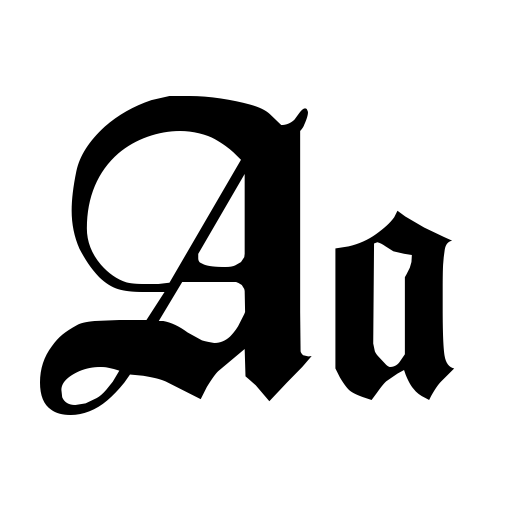
Beckett is a bold Blackletter serif font featuring strong, dramatic strokes and intricate, sharp details that evoke a vintage, Gothic aesthetic. Its distinctive letterforms, including ornate capitals and tightly spaced lowercase, make it ideal for headlines, logos, and designs seeking a historical or medieval flair with a powerful, authoritative presence. This font works best where a striking, classic impact is desired, such as in branding, posters, or editorial displays.
Beckett Font